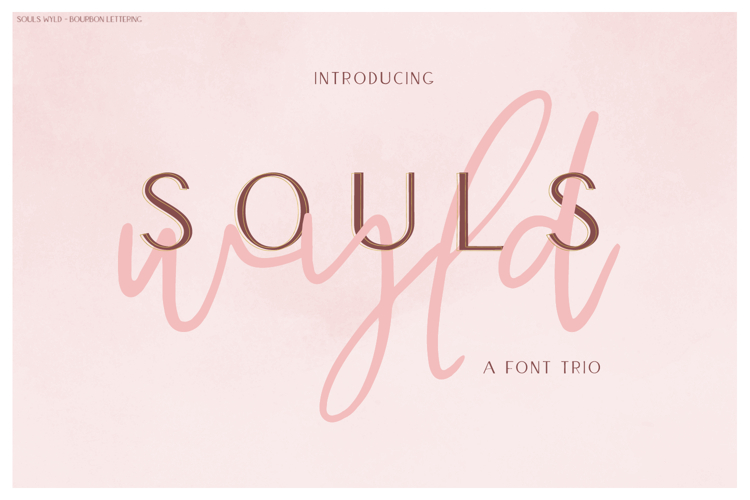
Souls Wylde Font Trio - Script Font and Sans Fonts
Introducing Souls Wyld, an expertly paired font trio that includes a handwritten script with robust features, as well as two all-caps sans fonts - one solid, one outline. Souls Wyld Script includes over 160 alternates + ligatures - carefully selected combinations of letters will enhance the handwritten look + feel of your project. Pull it all together with Souls Wyld Sans (Solid or Outline) for a refined, luxe look.
Souls Wyld Script includes:
- 78 lowercase alternate characters
- 91 ligatures (double letter ligatures, common combinations)
ee gg im mm rr st ab ad ak al am an ar at att bb bl ca cc ce ch ck co db dd de dl dt ea eb ed ee eel el em en er es est et ex ey ez ff fi fl fo gg gh ght he ht id ie il im in ir is it kk la ll mm nn of oh om on oo op os ot ou ow ph pp rr sa sh ss st th tt ub ue un ur ut wh zz
Souls Wyld Sans + Outline include:
- uppercase letters